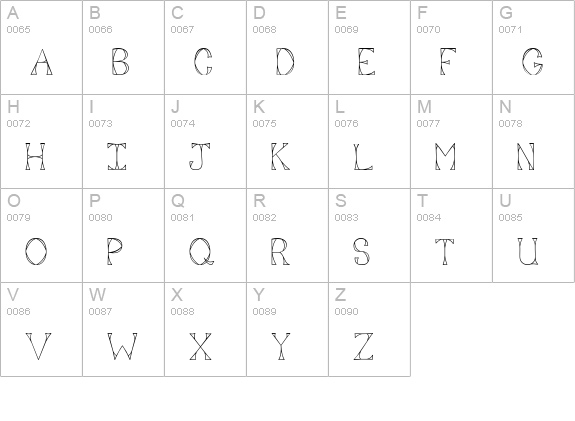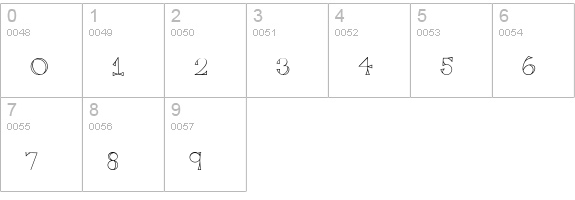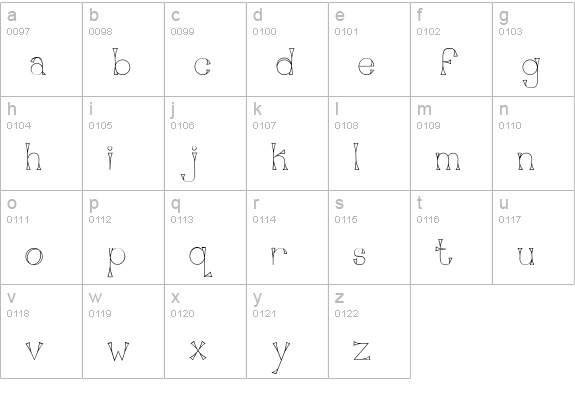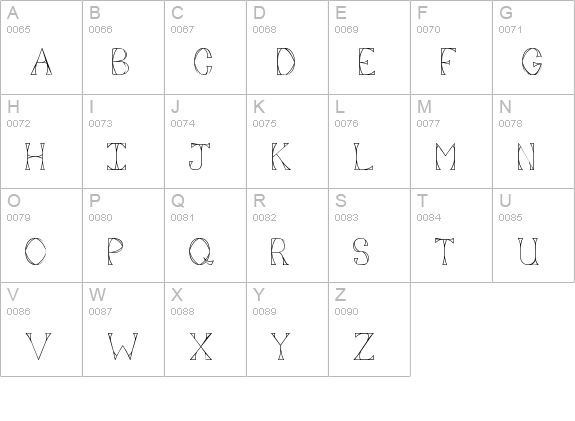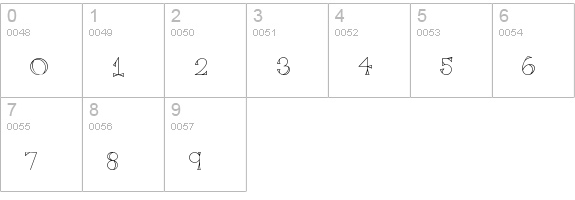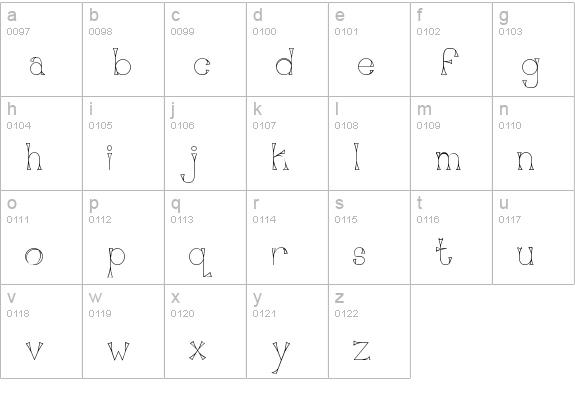
CK Cool Serif Font Details
Introducing CK Cool Serif font, a timeless and sophisticated typeface designed to elevate your projects to the next level. This elegant serif font features clean lines, classic proportions, and a touch of modern flair that sets it apart from the rest. With its impeccable balance of tradition and innovation, CK Cool Serif is perfect for a wide range of design applications, from branding to editorial design. This versatile font is available for free download exclusively at FontsMarket.com, making it accessible to designers, creatives, and enthusiasts alike. Whether you're working on a logo, website, or print materials, CK Cool Serif offers a refined and polished look that will make your work stand out. Embrace the beauty and versatility of this stunning font and take your designs to new heights with CK Cool Serif.